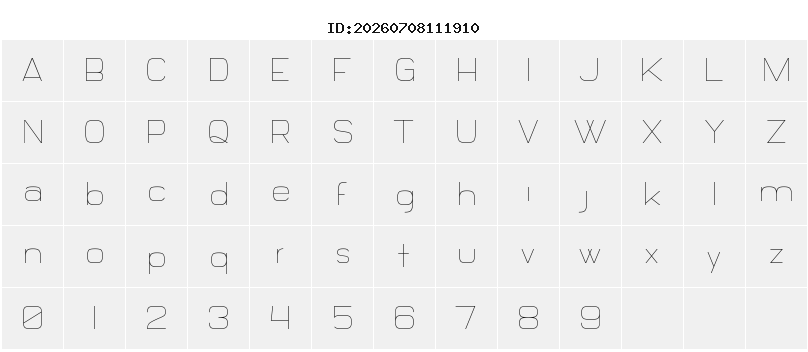
Daiichi Preview
• Font Name: Daiichi
• Full Font Name: Daiichi
• Version: Version 1.00 October 2, 2012, initial release
About Daiichi.ttf
Daiichi.ttf is a modern, elegant sans-serif font designed for ultimate readability and visual harmony. Perfect for branding, headlines, web design, and print materials.